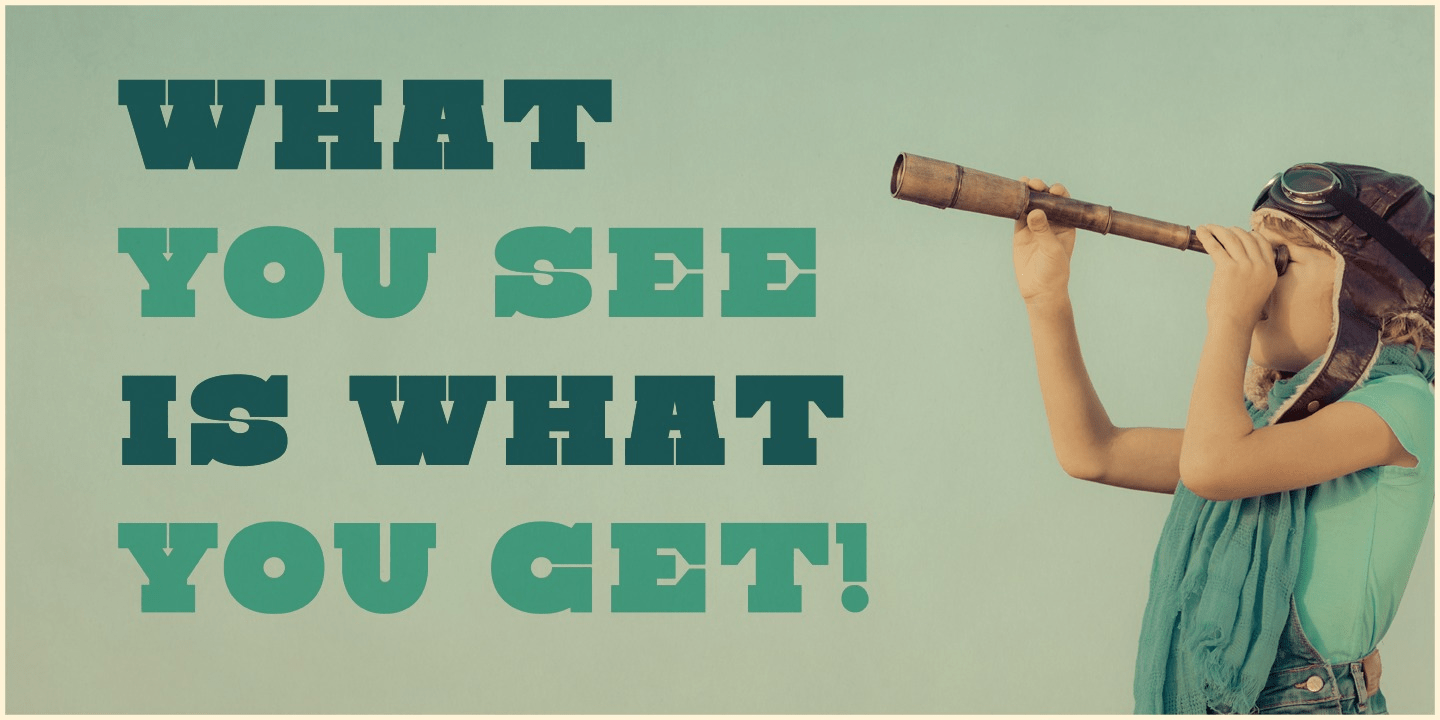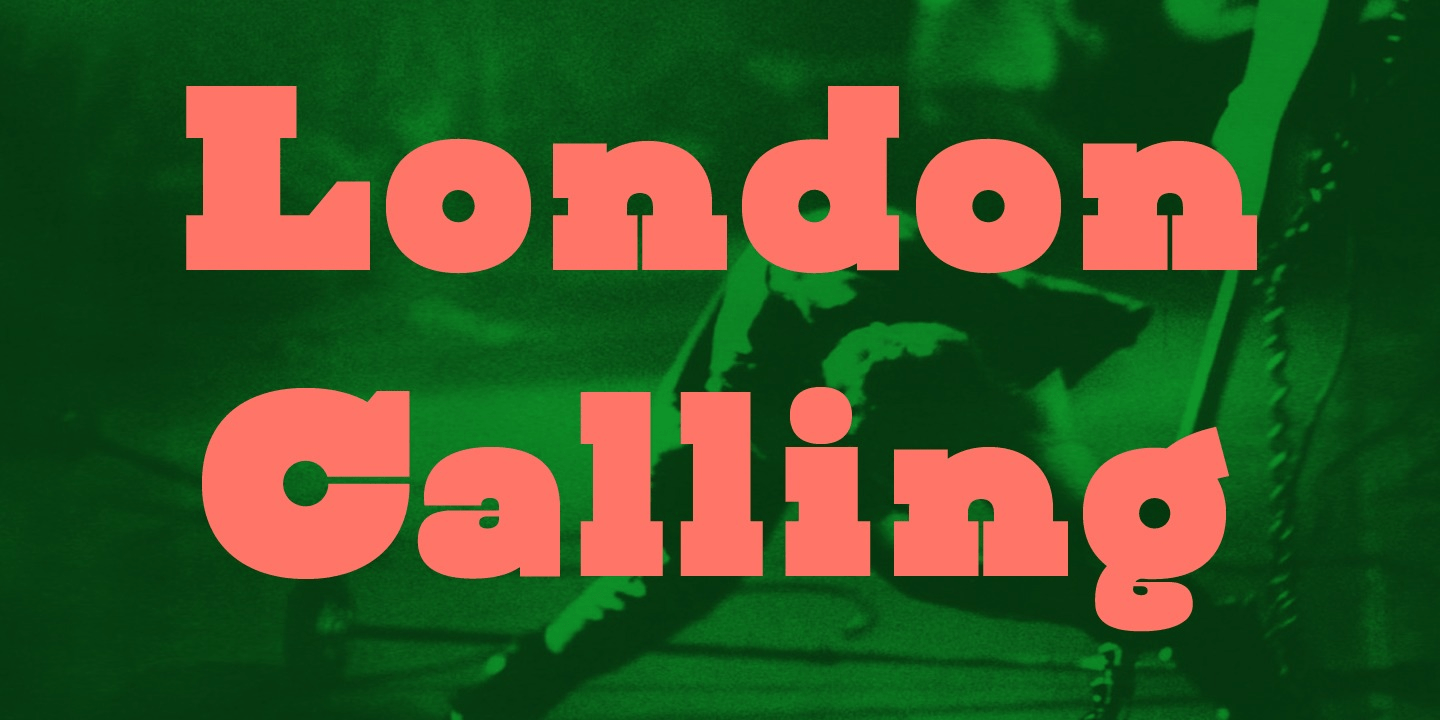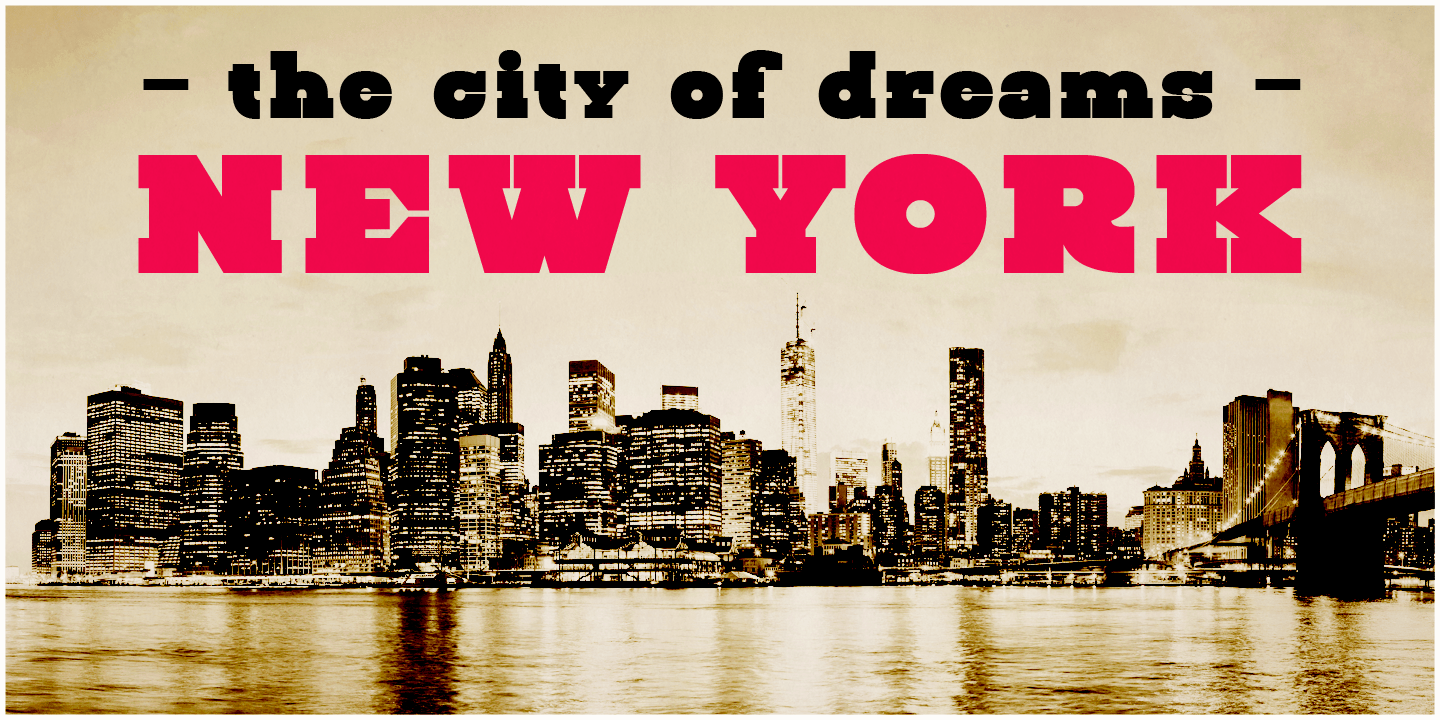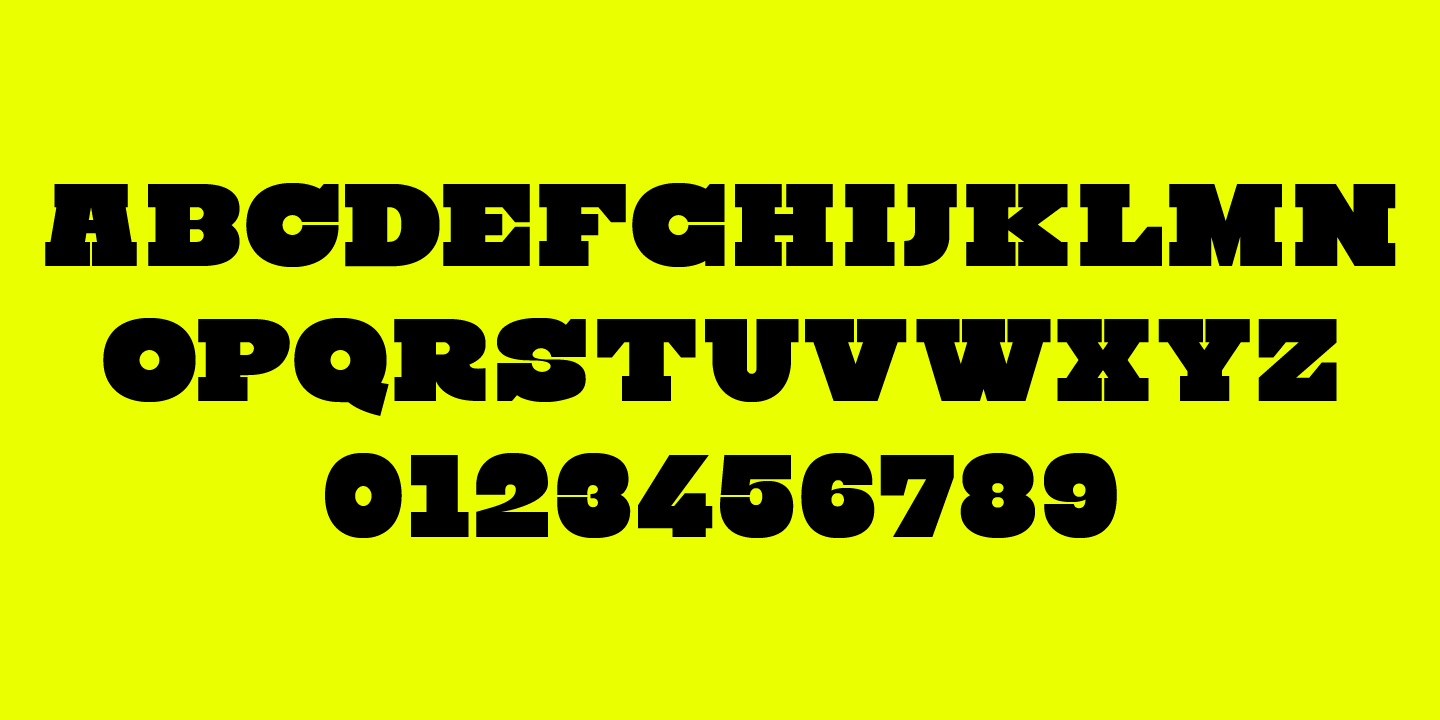
About Steampunk
The Steampunk font is inspired on sixties hand lettered French movie poster of Charles Bronson. This style of type is instantly associated with advertising and design for high-end products with a touch of Arts & Crafts. Steampunk is carefully drawn for…